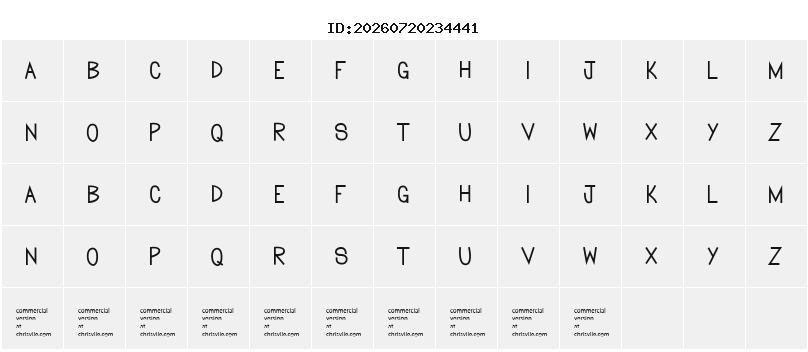
• Font Name: Flowers for you
• Designer: Chris Vile
• Manufacturer: Fonts by Chris Vile
• Description: Flowers for you is a font by Fonts by Chris Vile, designed by Chris Vile in 2014.
About Flowers for you.ttf
Flowers for you.ttf is a modern, elegant sans-serif font designed for ultimate readability and visual harmony. Perfect for branding, headlines, web design, and print materials.